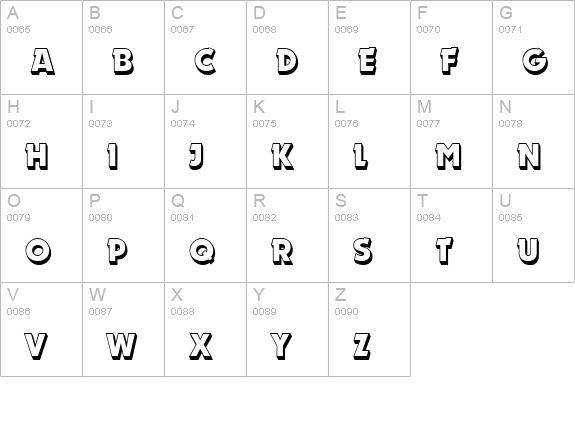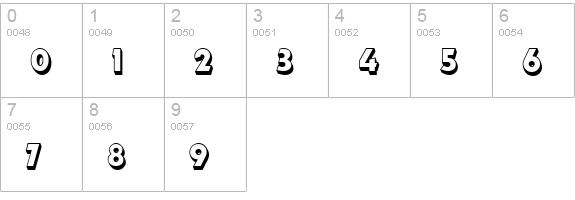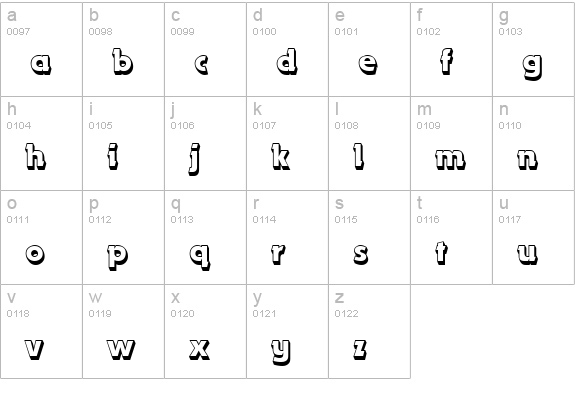
Introducing Nuts font, a versatile and eye-catching typeface that is perfect for a wide range of design projects. With its playful yet elegant style, Nuts font adds a touch of whimsy and charm to any text or headline. This font features a unique combination of rounded edges and bold strokes, making it stand out from the crowd. But the best part? Nuts font is completely free to download at FontsMarket.com! That's right, you can add this stylish font to your collection without spending a dime. Whether you're working on a branding project, website design, or any other creative endeavor, Nuts font is sure to make a statement. Don't miss out on this fantastic font - download it today and let your creativity shine!